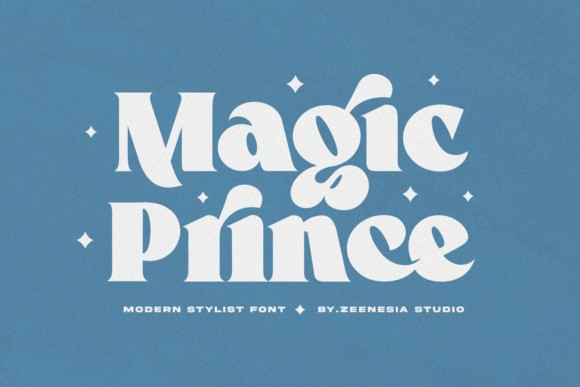
Magic Prince Font
Magic Prince Serif Font is a cool, retro-style display font masterfully crafted to become a true favorite. Contemporary and fresh, it is perfect for any design you wish to create. Add it to your creative projects and make them outstanding! This font is PUA encoded which means you can access all the glyphs and ligatures with ease!